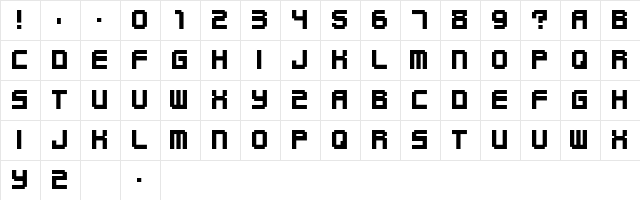
Funky Regular Free Font
Funky Regular
Design Context for Funky
Funky has an approachable, lighthearted character - its loose, expressive forms are well-suited to children's content, casual branding, and fun-first design.
Font Pairing: Pairs well with a rounded or humanist sans for body copy, maintaining the friendly tone without relying on Funky to carry extended reading.
Pro Tip: Use Funky at larger display sizes where its expressive character can land. Pair with a clean, simple sans for body copy to maintain readability.